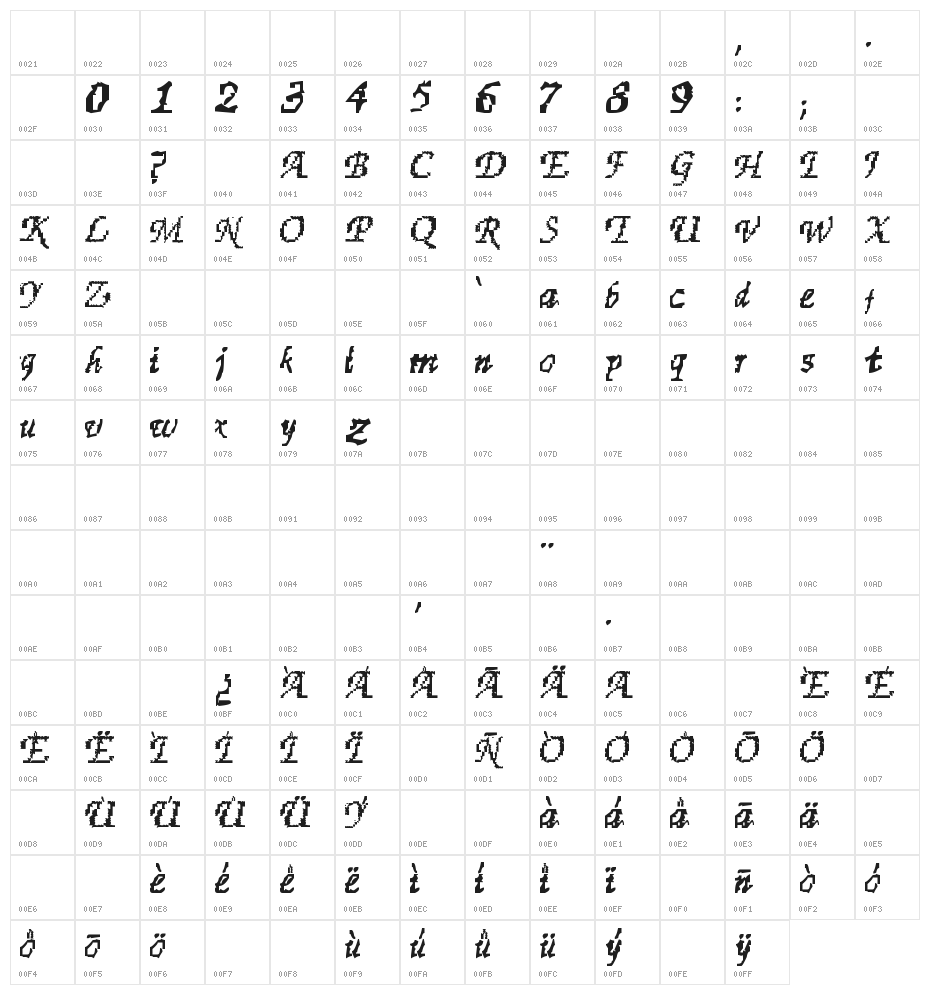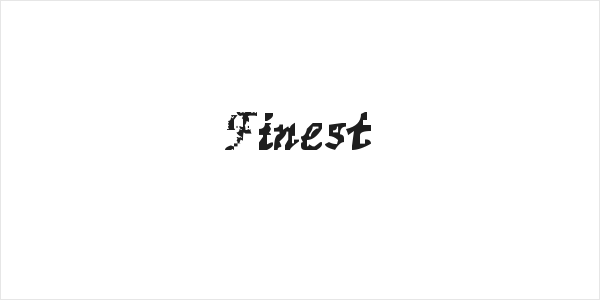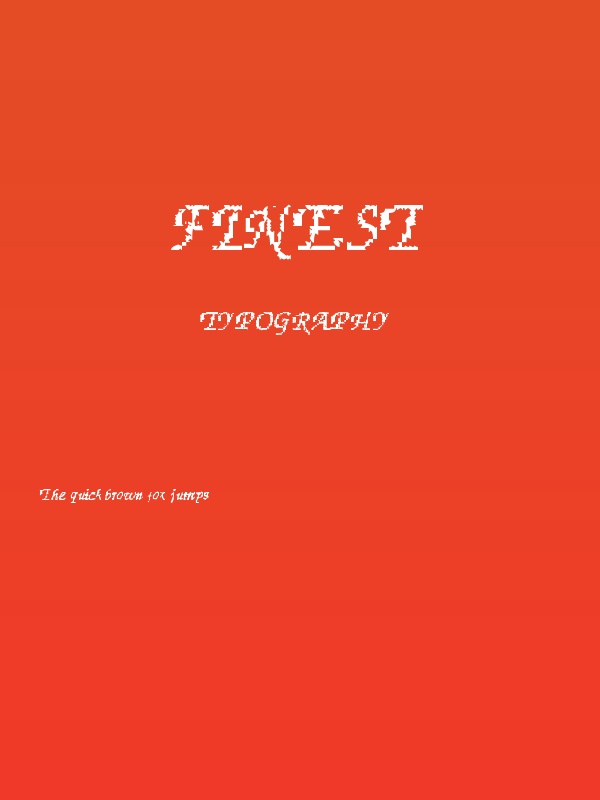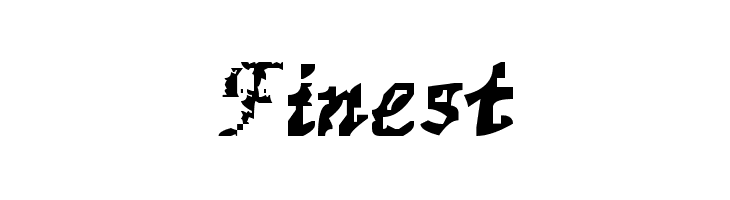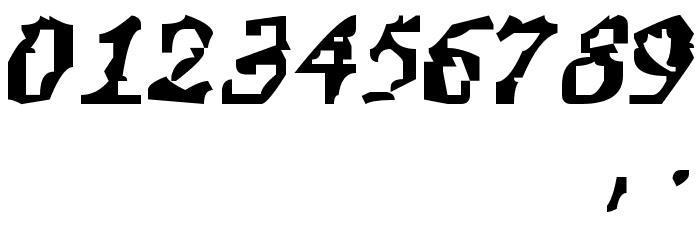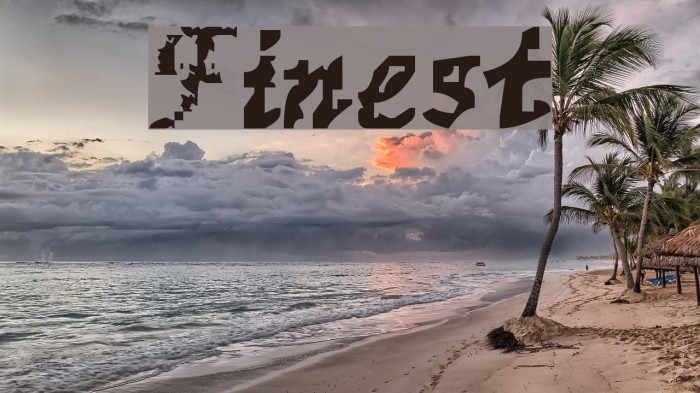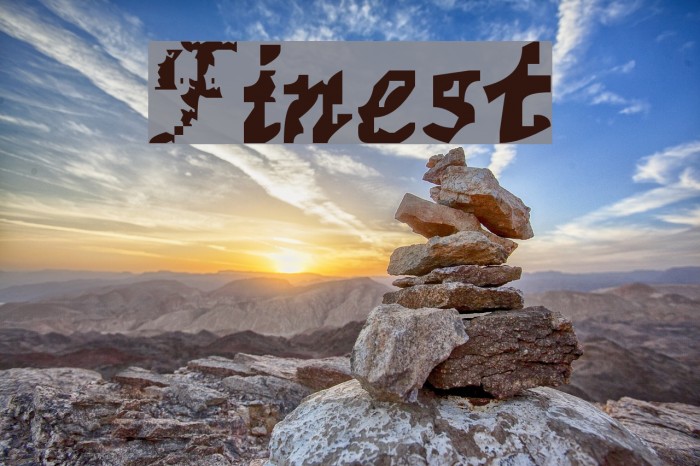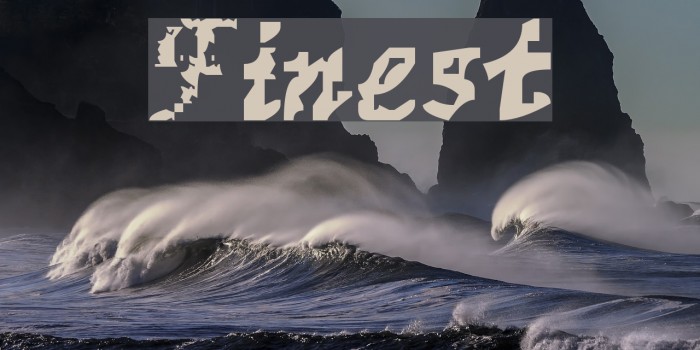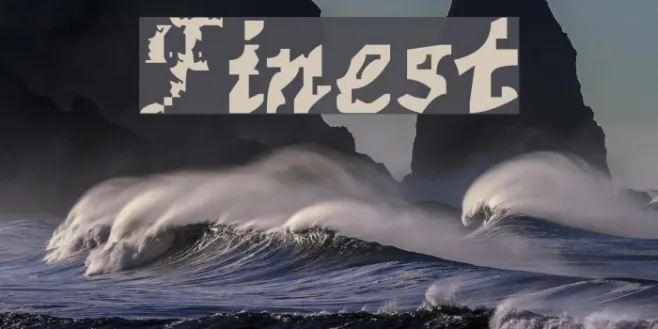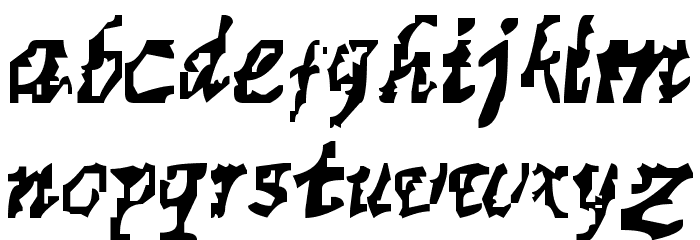
Finest Font
Finest Description
This font features a bold and dynamic style with a distinct, jagged edge that gives it a unique, aggressive appearance. The uppercase letters are sharp and angular, while the lowercase letters maintain a consistent style with slightly more curvature. The numbers are bold and follow the same jagged design, making them stand out prominently. The special characters are crafted to match the overall aesthetic, ensuring a cohesive look across all elements. This font's striking appearance makes it ideal for projects that require a strong visual impact.
| Proposed Projects | Ideal for branding, poster design, album covers, and any project needing a bold, impactful typeface. |